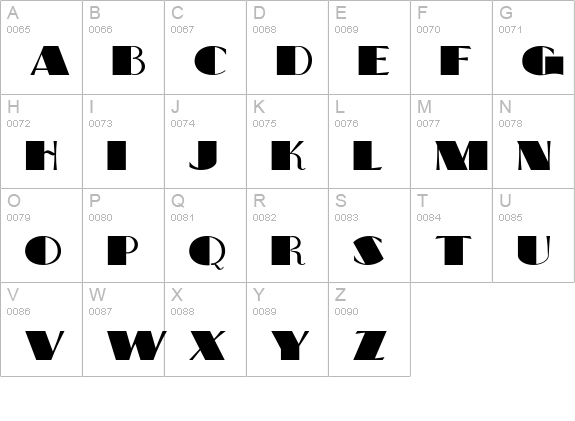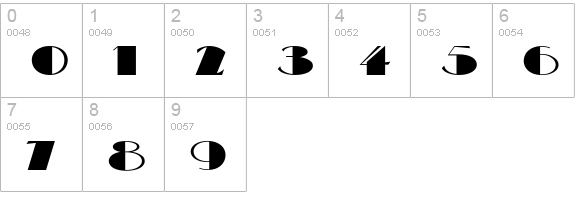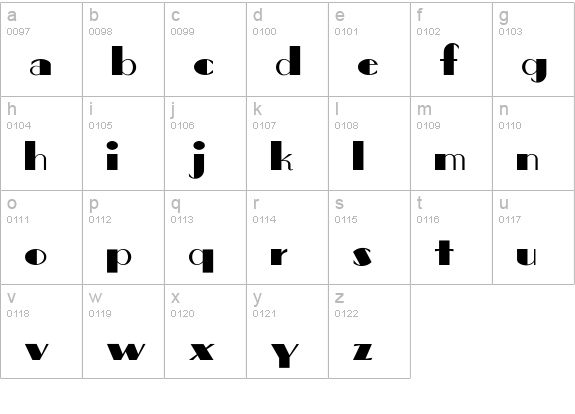
BigApple Font Details
Introducing BigApple font, a sleek and modern typeface that exudes sophistication and style. With its clean lines and bold strokes, BigApple is perfect for adding a touch of elegance to any design project. Whether you're creating a logo, website, poster, or any other graphic design, this font is sure to make a big impression. The best part? BigApple is completely free to download at FontsMarket.com. Now you can elevate your designs without breaking the bank. Don't miss out on this fantastic opportunity to enhance your creative projects with this stunning font. Download BigApple today and see the difference it can make in your designs.